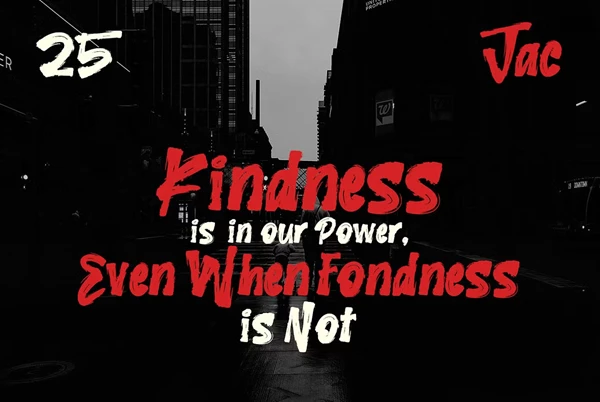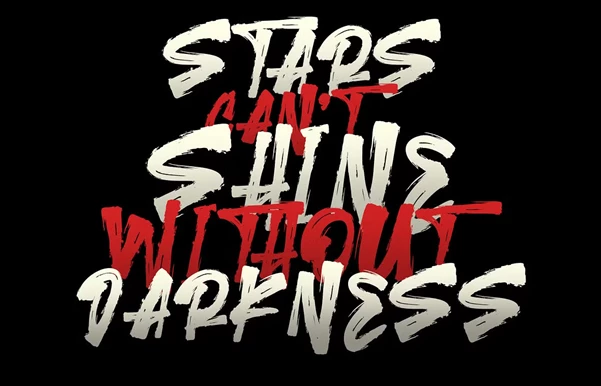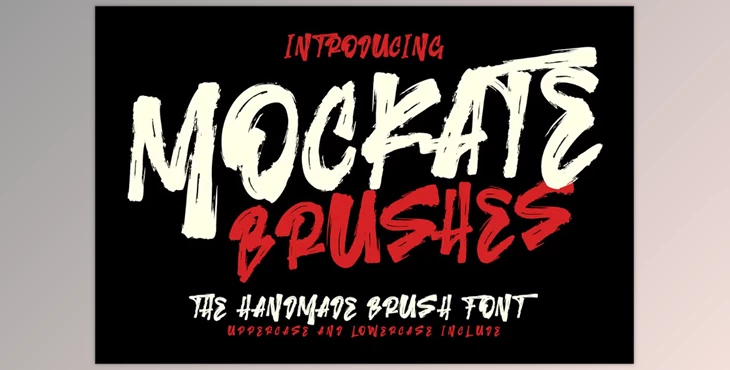
Mockate Brushes Handmade Font:
For all creatives, Mockate Brushes Handy Font gives an exquisite handmade touch. Mockate Brushes will help you add a crafty touch to your works ranging from logos to book covers and even signatures, and help branding on clothing and packaging.
"Mockate Brushes Handmade Font" Samples: